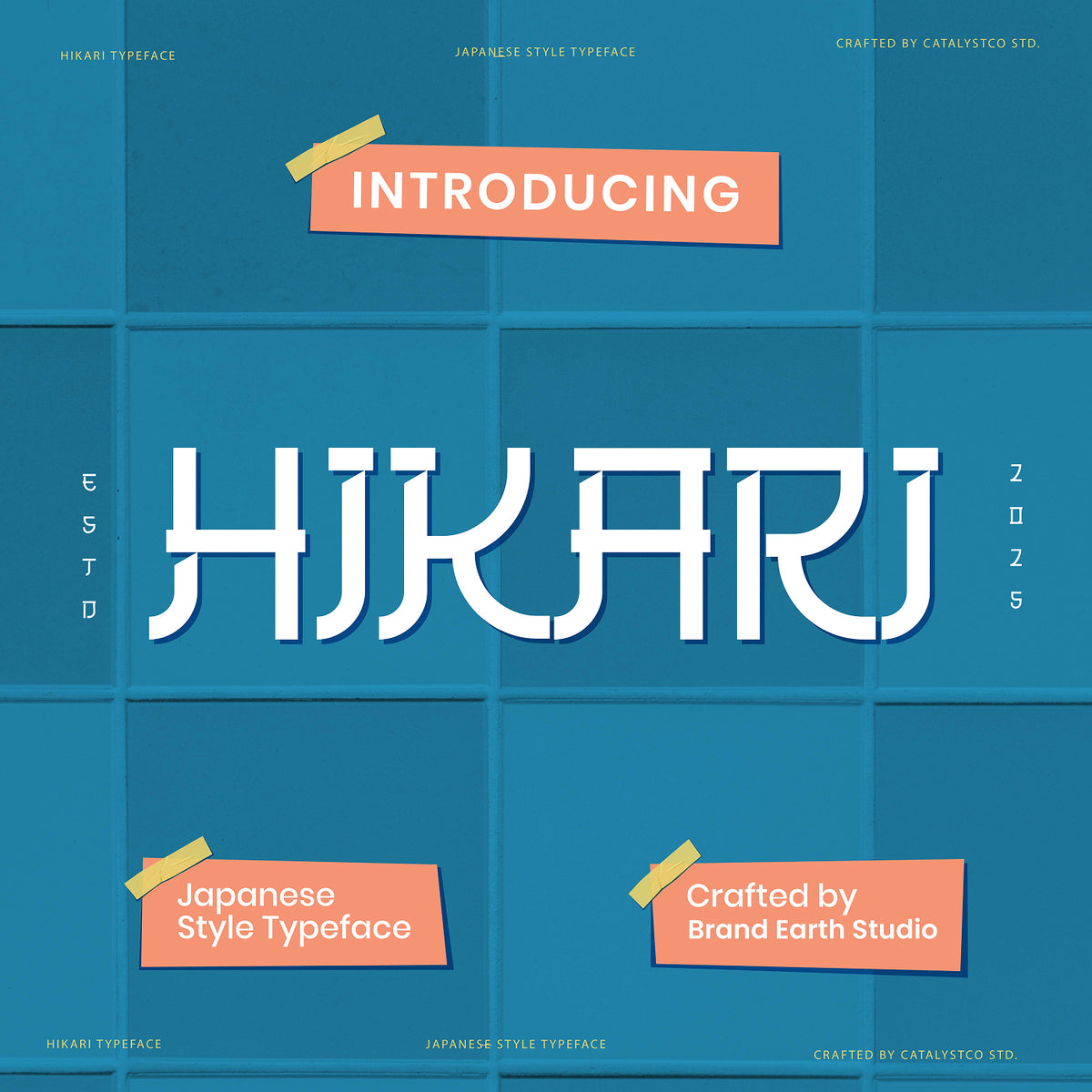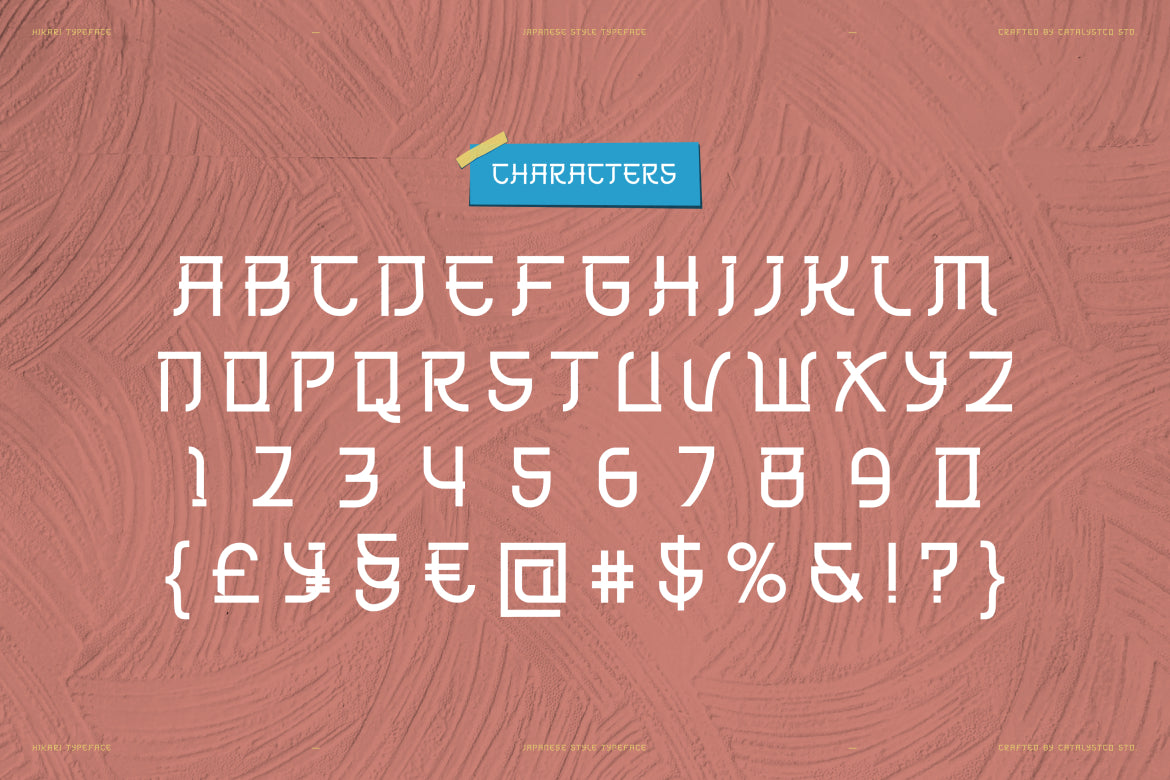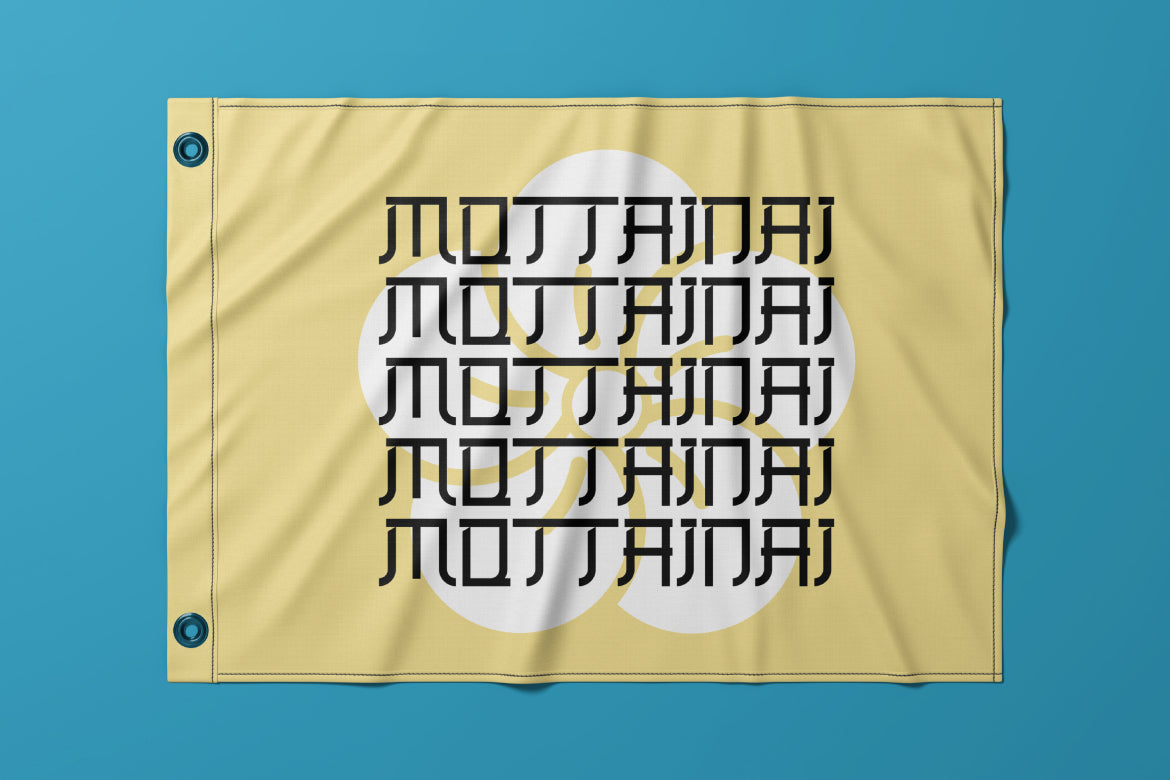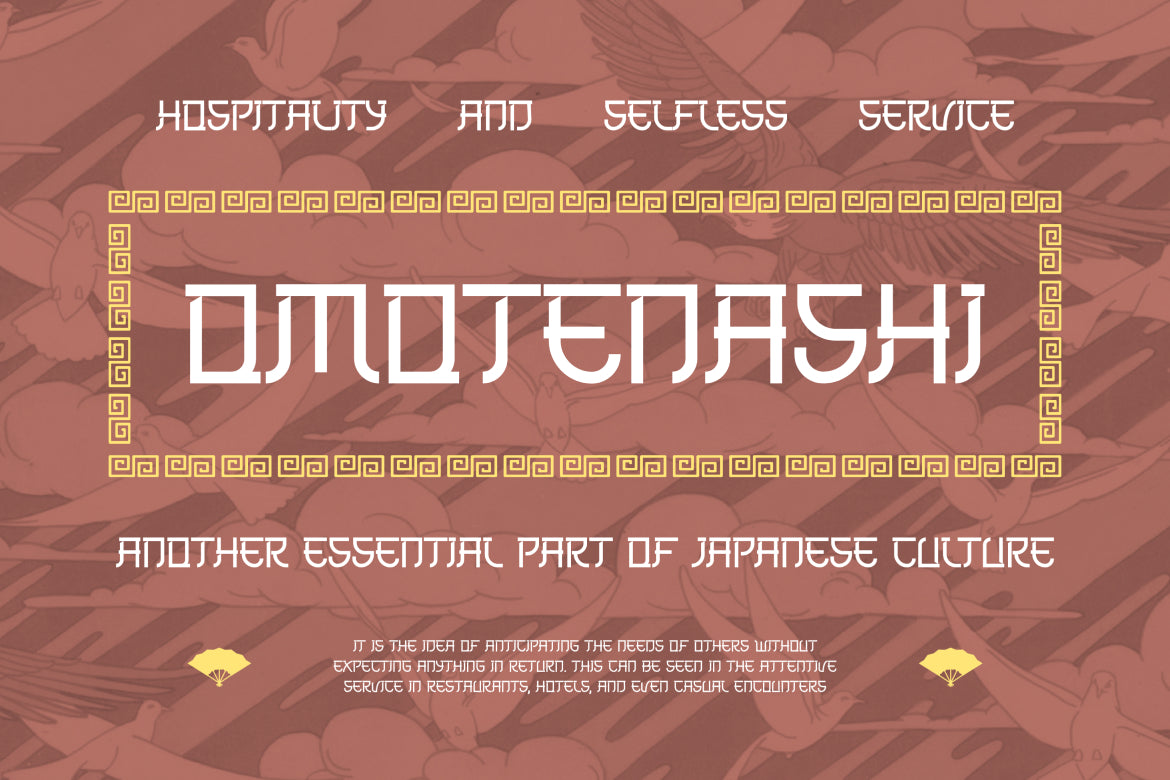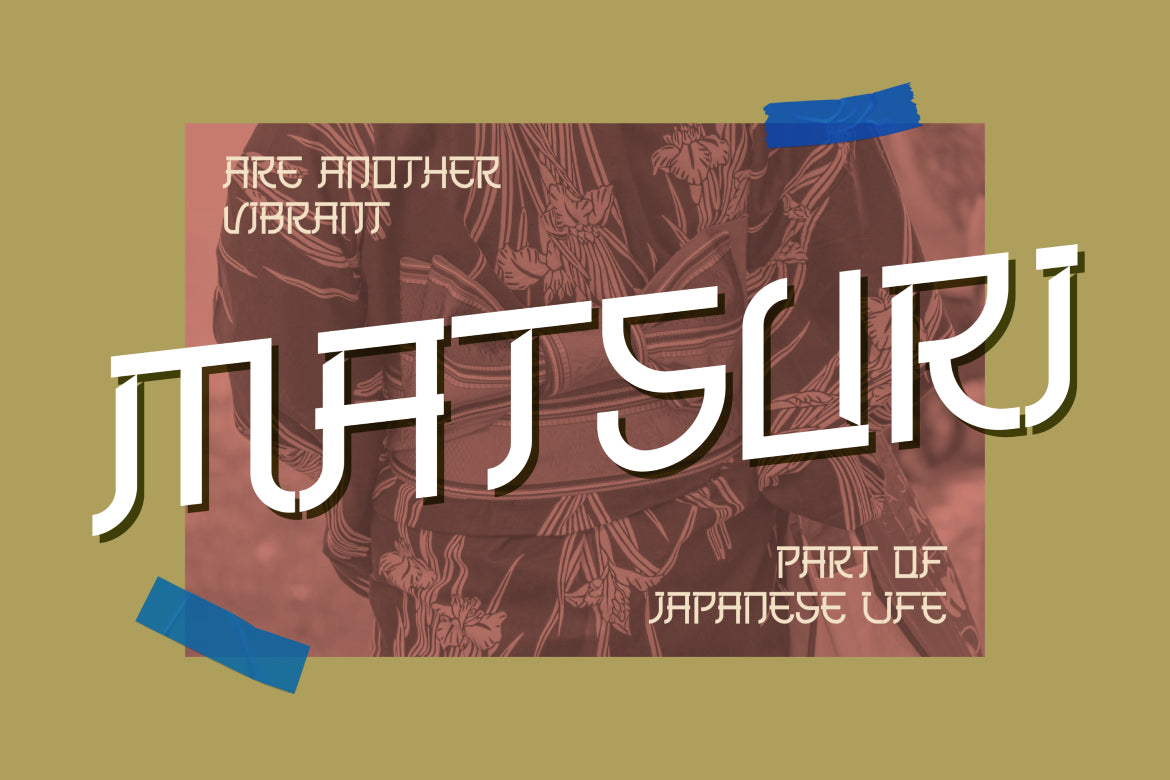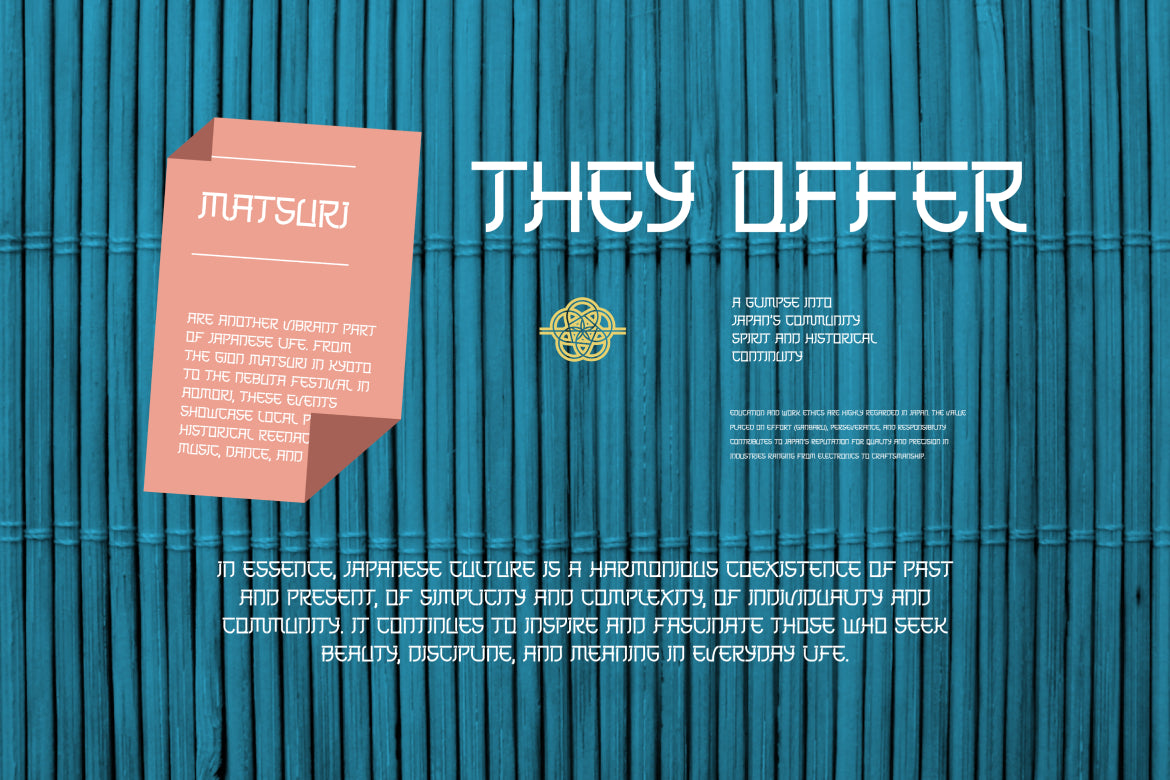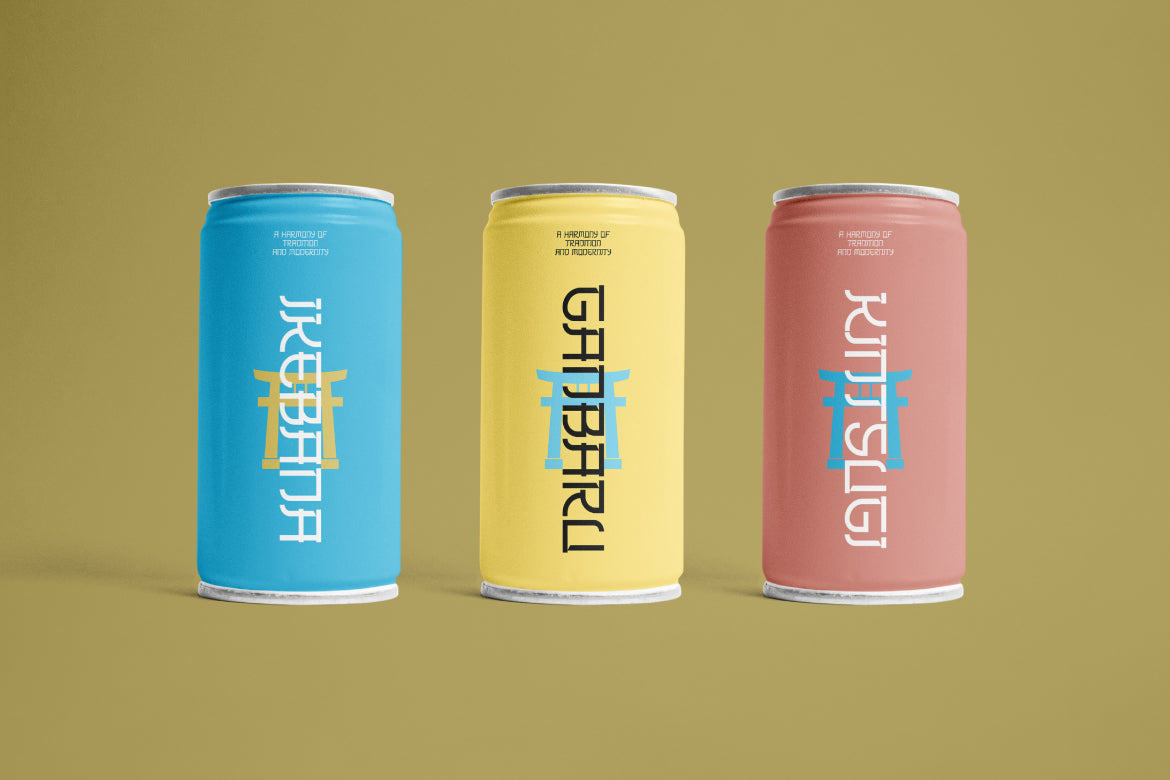
Hikari Japanese Style Typeface Font
HIKARI is a forward-looking display font inspired by the balance of modern minimalism and cultural heritage. Its aesthetic fuses clean modular geometry with subtle strokes that echo traditional Japanese brushwork, making it uniquely positioned to bridge the gap between tech and tradition. The font carries a futuristic yet warm personality firm in structure but open in spirit. Perfectly suited for brands that want to convey precision, progress, and identity, HIKARI thrives in markets that value both innovation and authenticity. With its geometric sans-serif nature, HIKARI is ideal for digital interfaces, promotional posters, drink packaging, and editorial layouts.
Hikari is a geometric sans-serif display font combining modular structure with strokes inspired by Japanese brushwork. It includes uppercase and lowercase characters, ligatures and alternates, numerals, punctuation, and multilingual support, available in TTF, OTF, and WOFF formats.